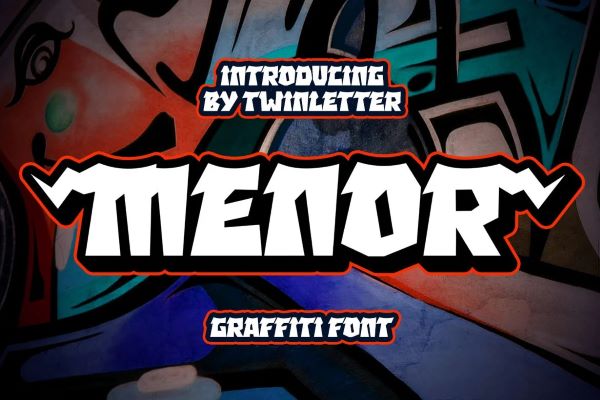
Menor Font
Menor Font is a Graffiti Font by Twinletter that erupts with rebellious artistic flair — its bold strokes and angular lines capturing the raw, defiant spirit of street culture in every character. It challenges design conventions without apology, making a bold statement that speaks directly to creative and street-savvy audiences even without lowercase letters or numbers.